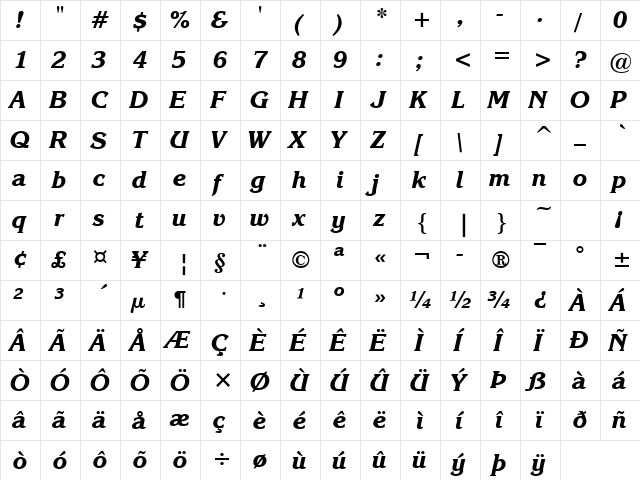
Enchanted Bold Italic
Design Context for Enchanted Typeface
Enchanted takes a measured approach to typography — its balanced proportions and neutral character make it a reliable workhorse for both digital and print work. The dynamic lean of this cut emphasises speed and emphasis in any layout. Its bold stroke weight gives it real presence on the page.